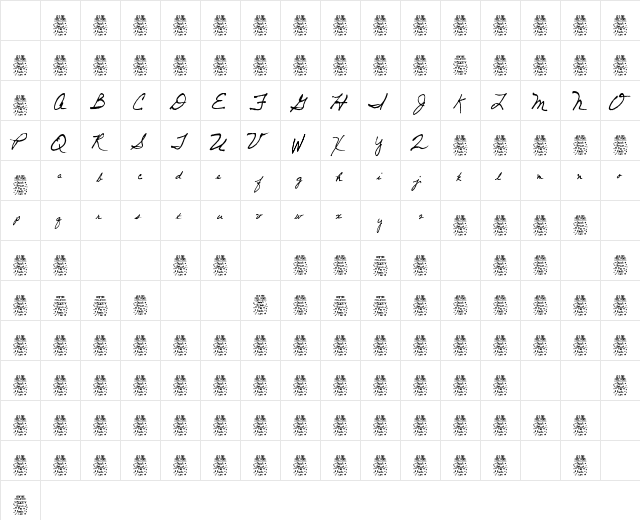
Complete Dancing Pam (Demo) Regular glyph index. Displaying only characters natively supported by Dancing Pam (Demo) Regular font.
Dancing Pam (Demo) is a composed and adaptable typeface that performs quietly and consistently across a wide range of design contexts.